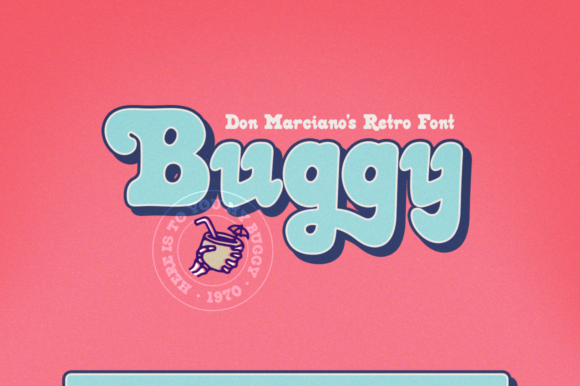
Have you ever been in the middle of a design project, staring at a blank canvas, trying to find the perfect font to bring your vision to life? We’ve all been there. You scroll through your font library, trying out different styles, but nothing seems to match the vibe you’re going for. That’s where the Buggy Font comes in – a bold and retro styled display font that’s sure to add a touch of trendiness to any project.
This versatile font is perfect for everything from crafting and digital designing to presentations and greeting card making. Its unique style and bold character make it a valuable addition to any designer’s toolkit, and its ease of use means you can get creative without the hassle of complicated formatting. Whether you’re a seasoned pro or just starting out, the Buggy Font is a great choice for anyone looking to add some personality to their designs.
Buggy Font Key Features
- Character Set: The font features a comprehensive character set, including Latin, Cyrillic, and Greek alphabets, as well as various symbols and punctuation marks.
- Unique Characteristics: The font’s distinctive “buggy” aesthetic is achieved through its irregular line widths, subtle texture, and quirky letterforms, making it perfect for adding a touch of whimsy to designs.
Buggy Font Review
I recently had the chance to work with the “Buggy Font” and here’s my honest take on it.
- Unique Character: Buggy Font has a distinct personality that can add a fun touch to your designs.
- Legibility: Despite its quirky nature, the font is surprisingly easy to read, even at smaller sizes.
- Customization Options: The font family offers a range of weights and styles, allowing for some flexibility in terms of design.
- Lack of Consistency: The font’s irregularities can sometimes make it feel inconsistent, which may be a problem for larger or more complex designs.
- Difficulty in Resizing: Buggy Font can become less legible when resized, which may limit its use in certain contexts.
While Buggy Font has some great qualities, its limitations hold it back from being a top choice for most designers. It’s perfect for small projects or specific design niches where its unique character can shine, but it may not be the best fit for more complex or demanding projects.
Tip: Use Buggy Font to add a playful touch to your designs, especially for children’s products or services.
Tip: Use Buggy Font to create custom logos or branding materials that stand out from the crowd.
Tip: Use Buggy Font to add visual interest to your presentations or documents, especially for educational or creative projects.
Buggy Font is perfect for:
- Children’s products and services
- Playful branding and logos
- Educational materials and presentations
- Creative projects and designs
Remember to use Buggy Font in moderation to avoid overwhelming your audience.